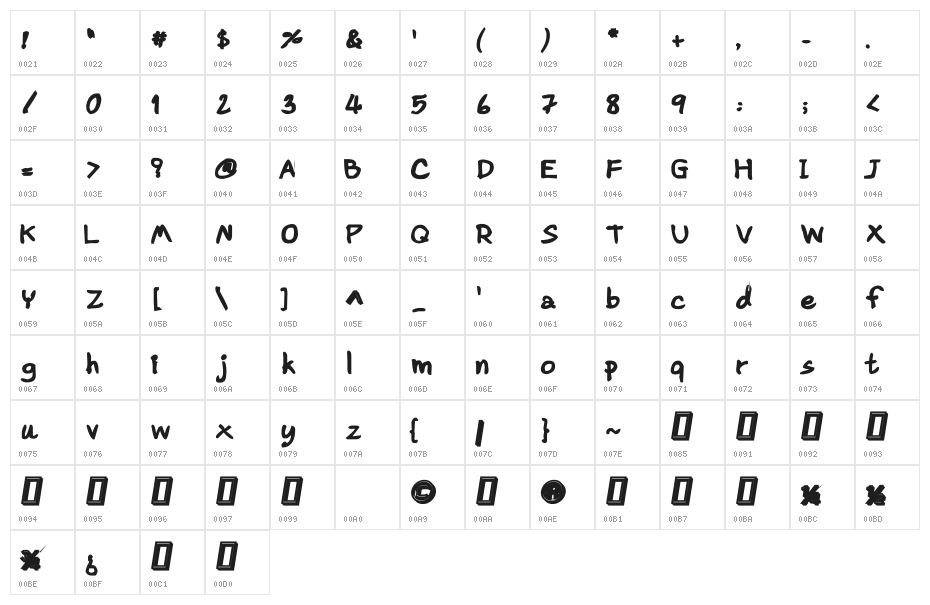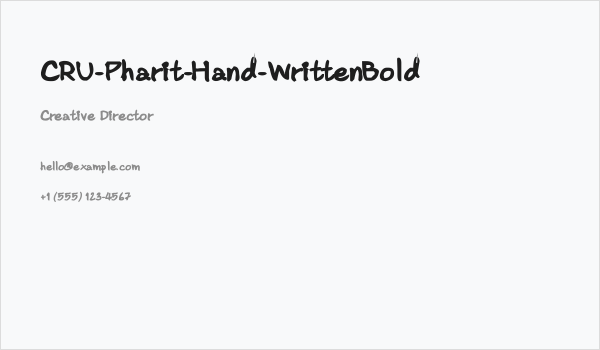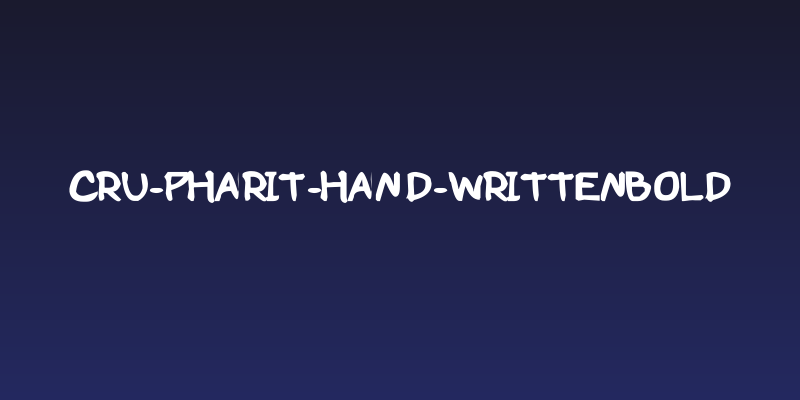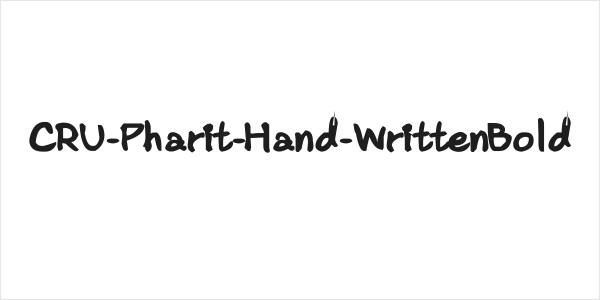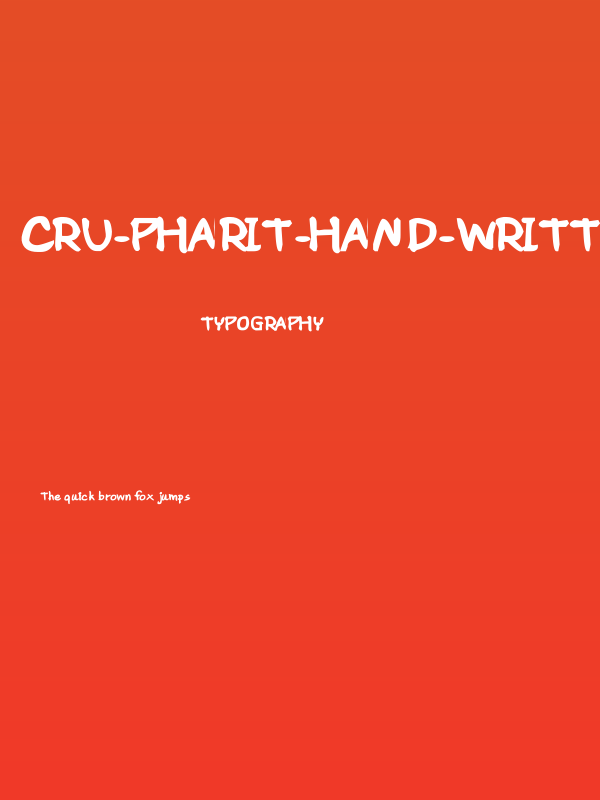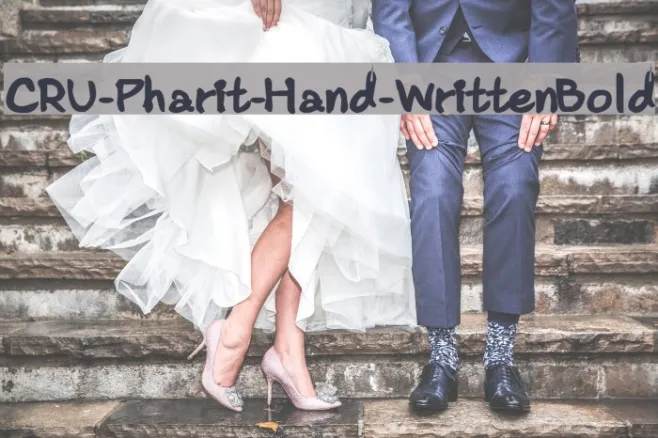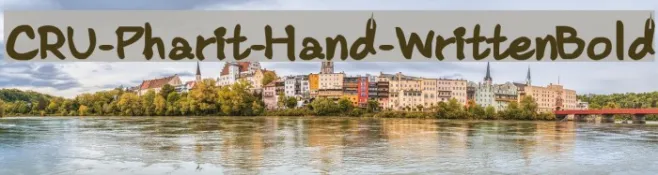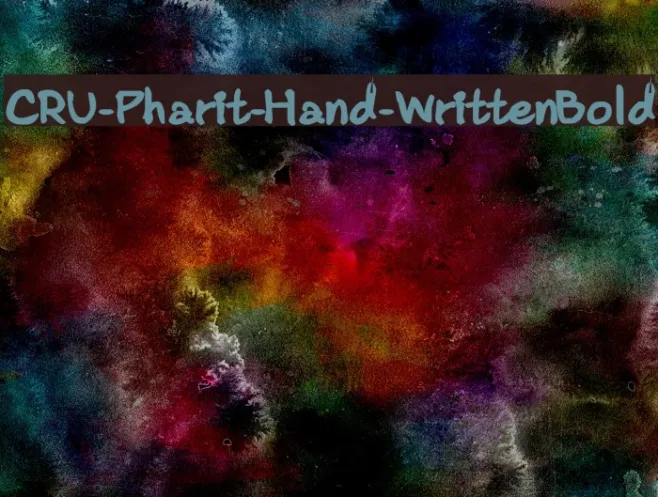
CRU-Pharit-Hand-WrittenBold Font
CRU-Pharit-Hand-WrittenBold Description
This font exhibits a bold, hand-drawn style that captures the essence of casual, artistic expression. The characters are crafted with a playful and dynamic flair, featuring irregular strokes and a slightly uneven baseline that adds to its charm. The uppercase letters are robust and assertive, while the lowercase letters maintain a friendly and approachable demeanor. Numbers and special characters are consistent with the overall handwritten aesthetic, making them versatile for various creative applications. The font's unique personality makes it ideal for projects that require a personal touch or a sense of informality.